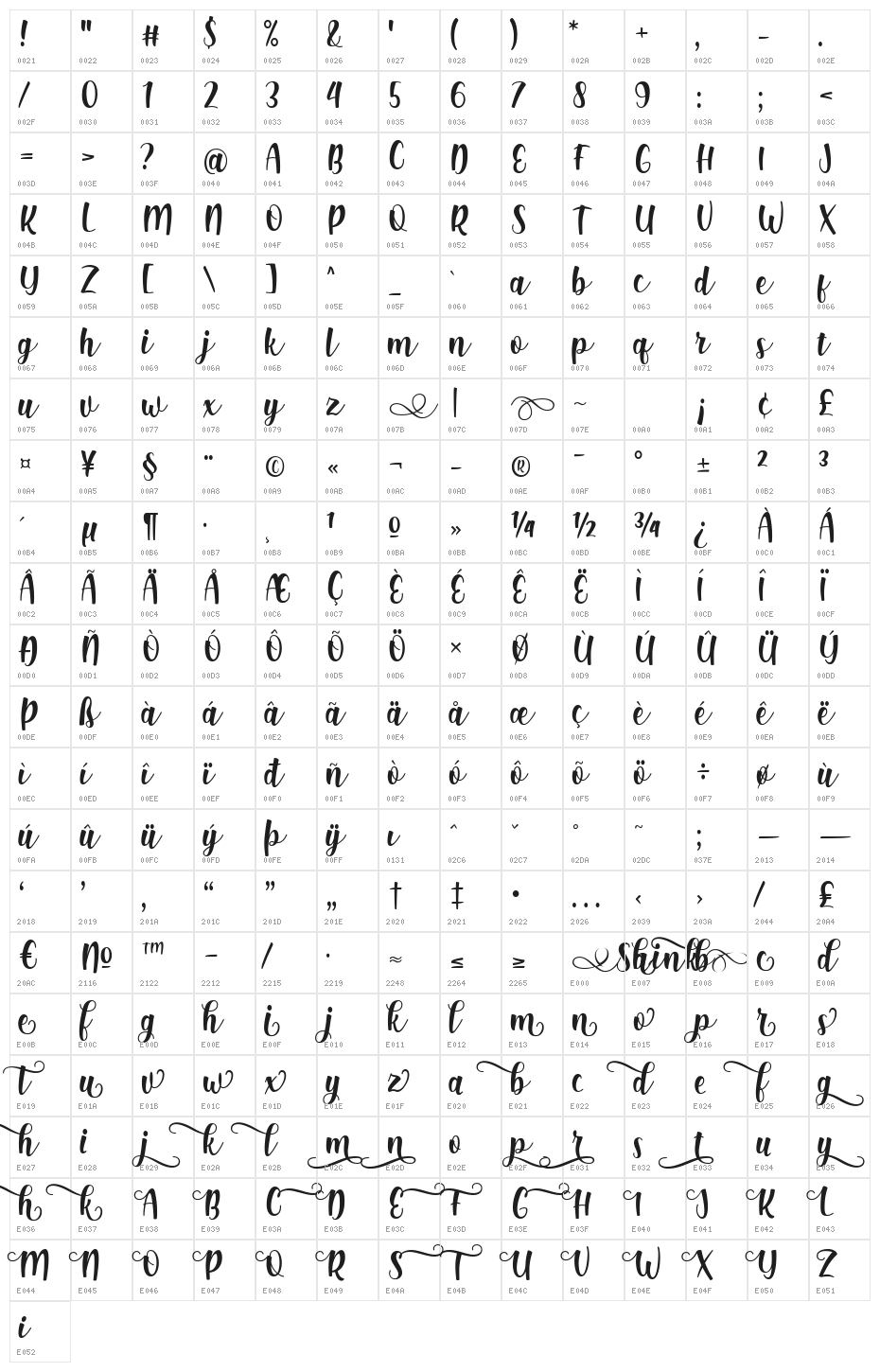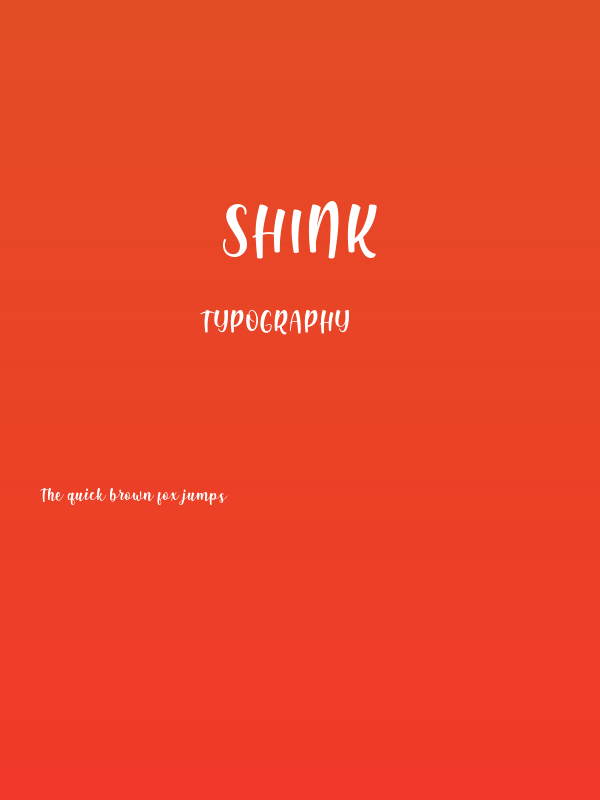
Shink Font
Shink Description
This font features a lively and expressive handwritten style, characterized by its fluid and dynamic strokes. The letters exhibit a playful yet elegant appearance, with a slight slant that adds to its informal charm. The uppercase letters are bold and prominent, while the lowercase letters maintain a consistent flow, creating a harmonious balance. The numerals are clear and distinct, complementing the overall aesthetic. Special characters are creatively designed, adding to the font's versatility. This font's unique style makes it suitable for a variety of creative projects.
Use CaseHeadlines, Logos, Invitations
Proposed ProjectsIdeal for greeting cards, invitations, branding, social media graphics, and creative posters.